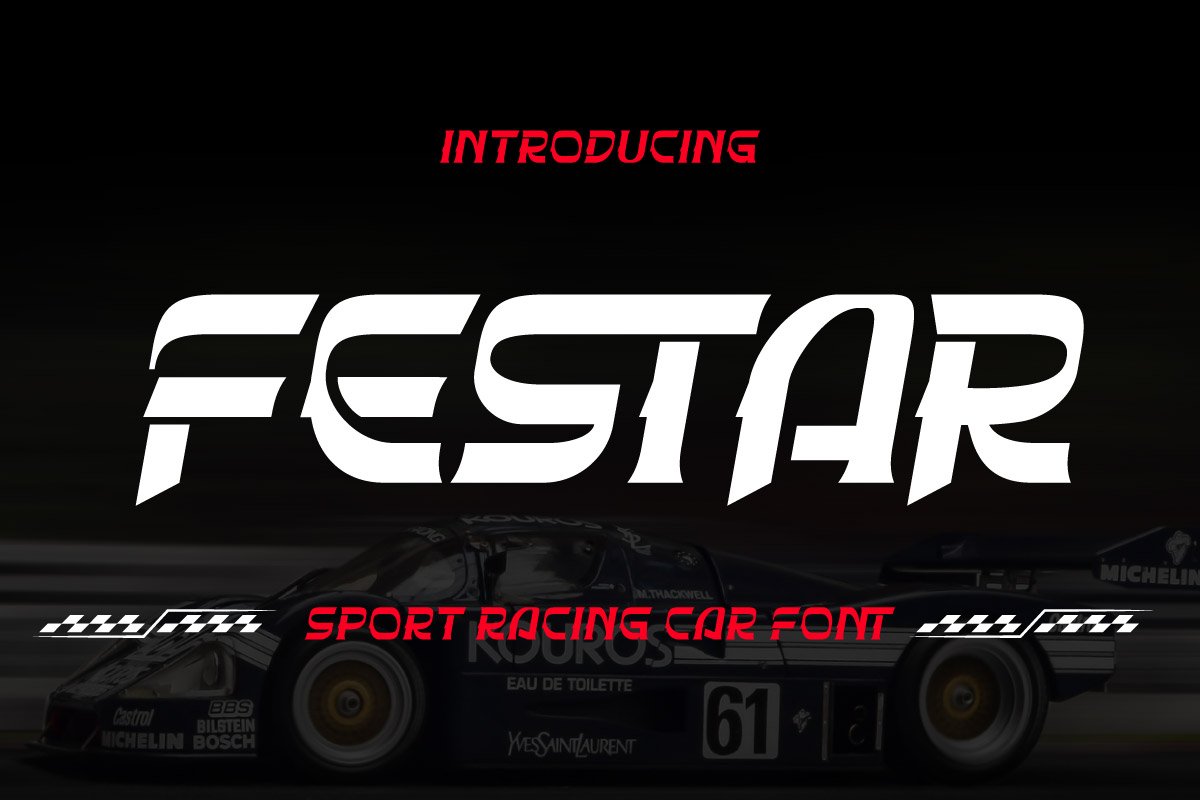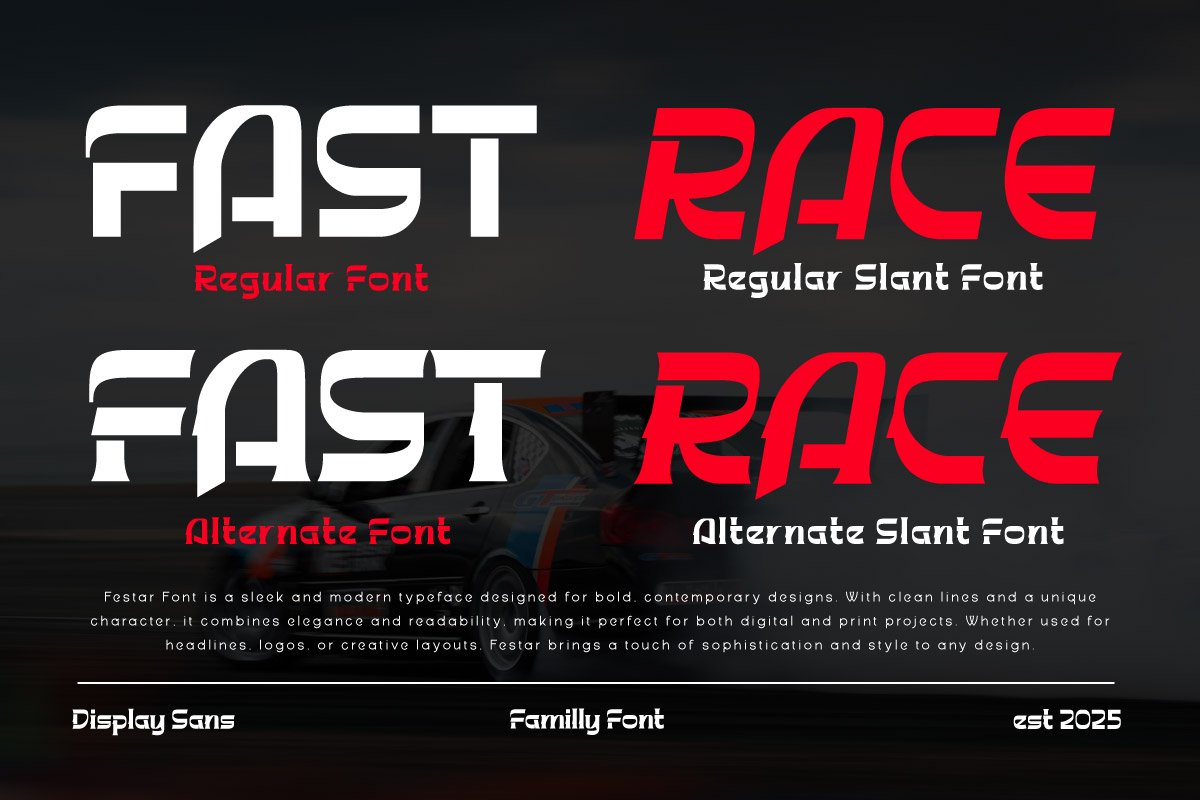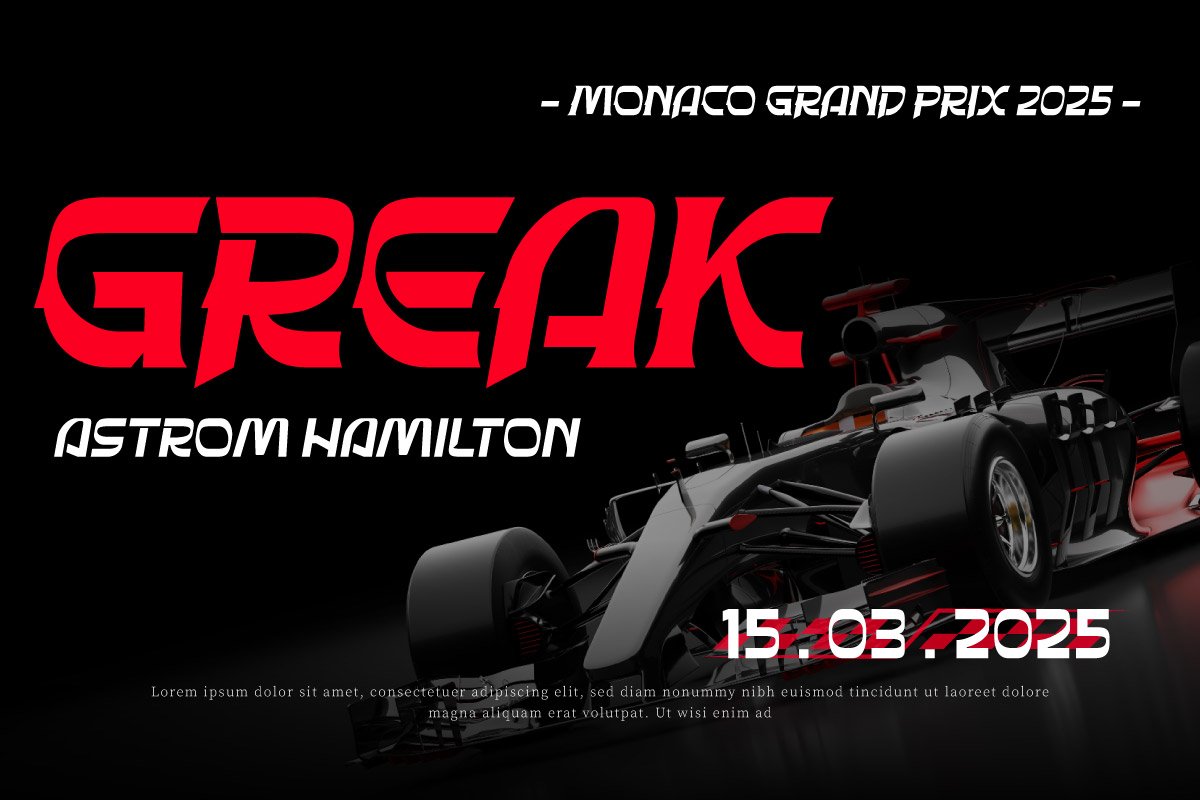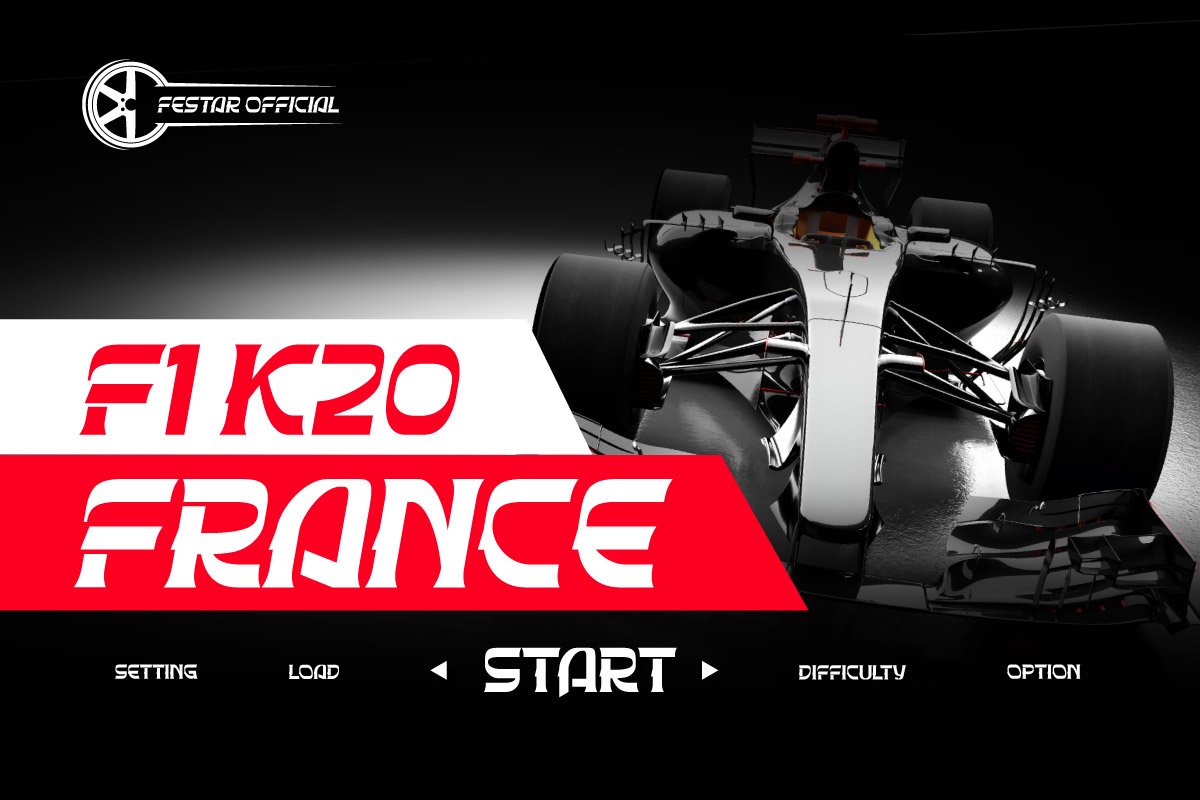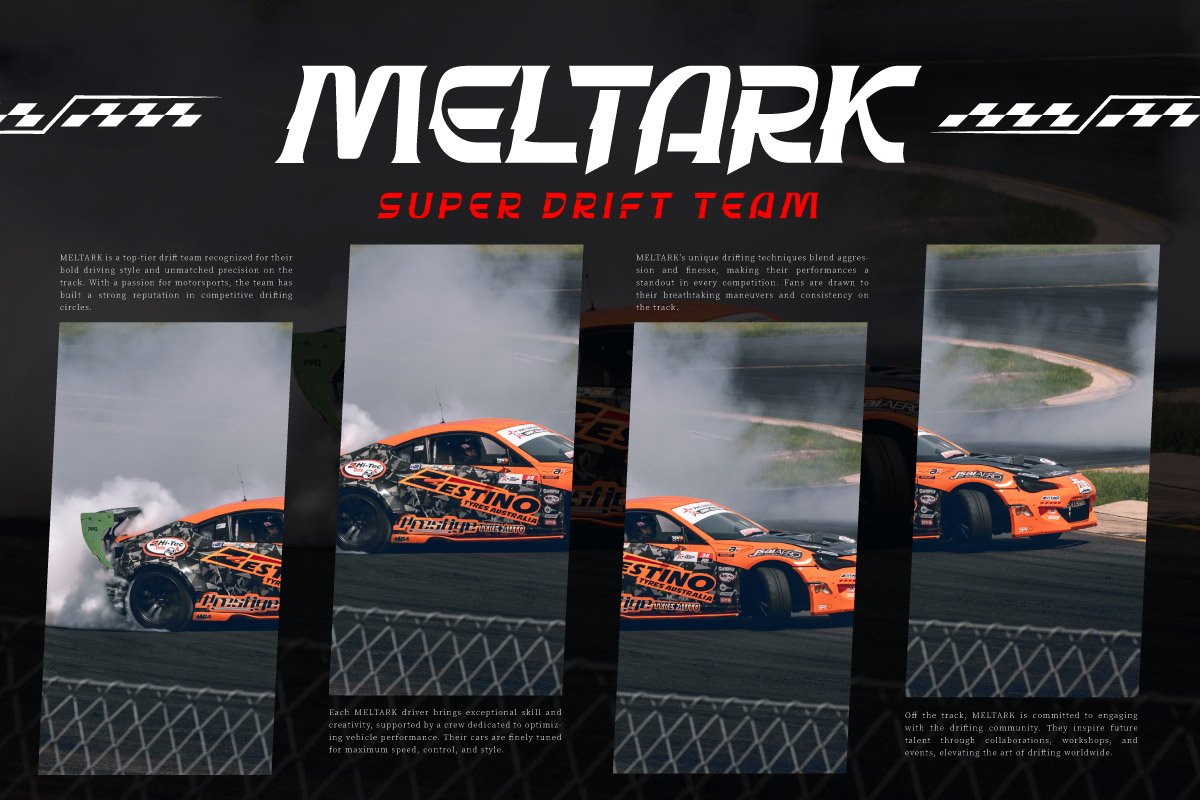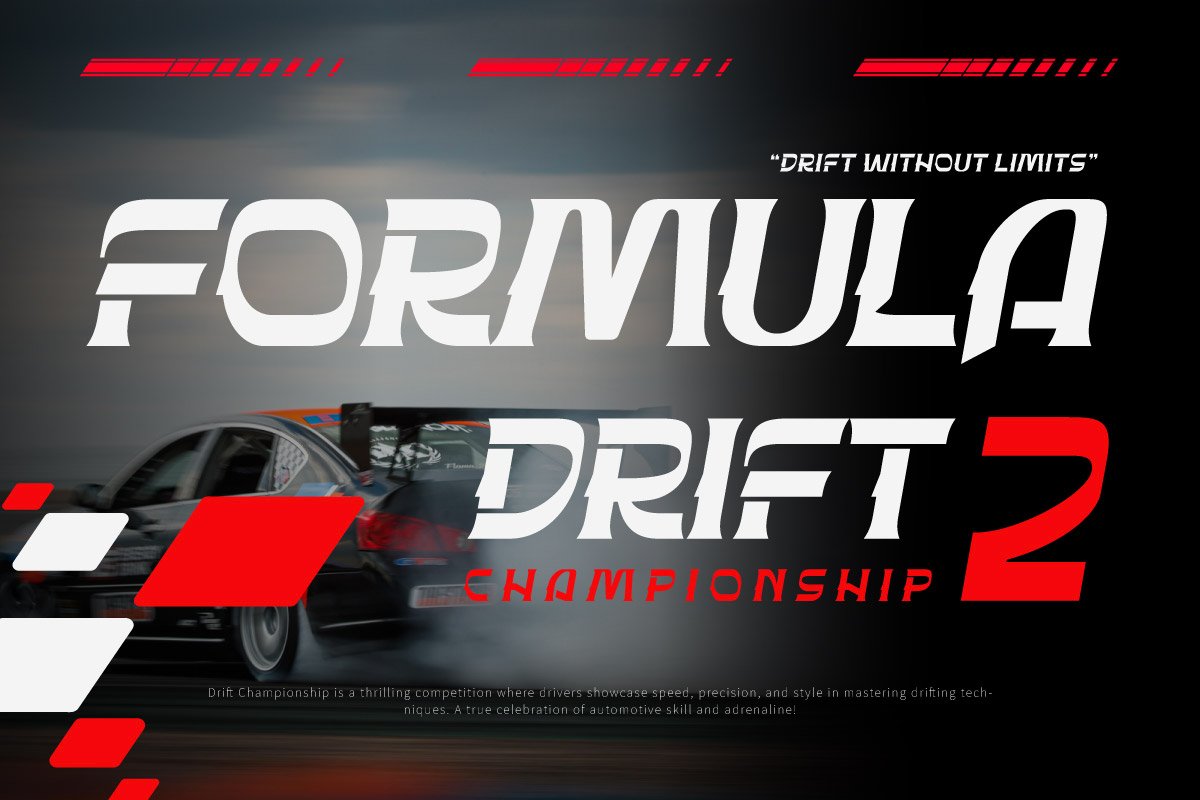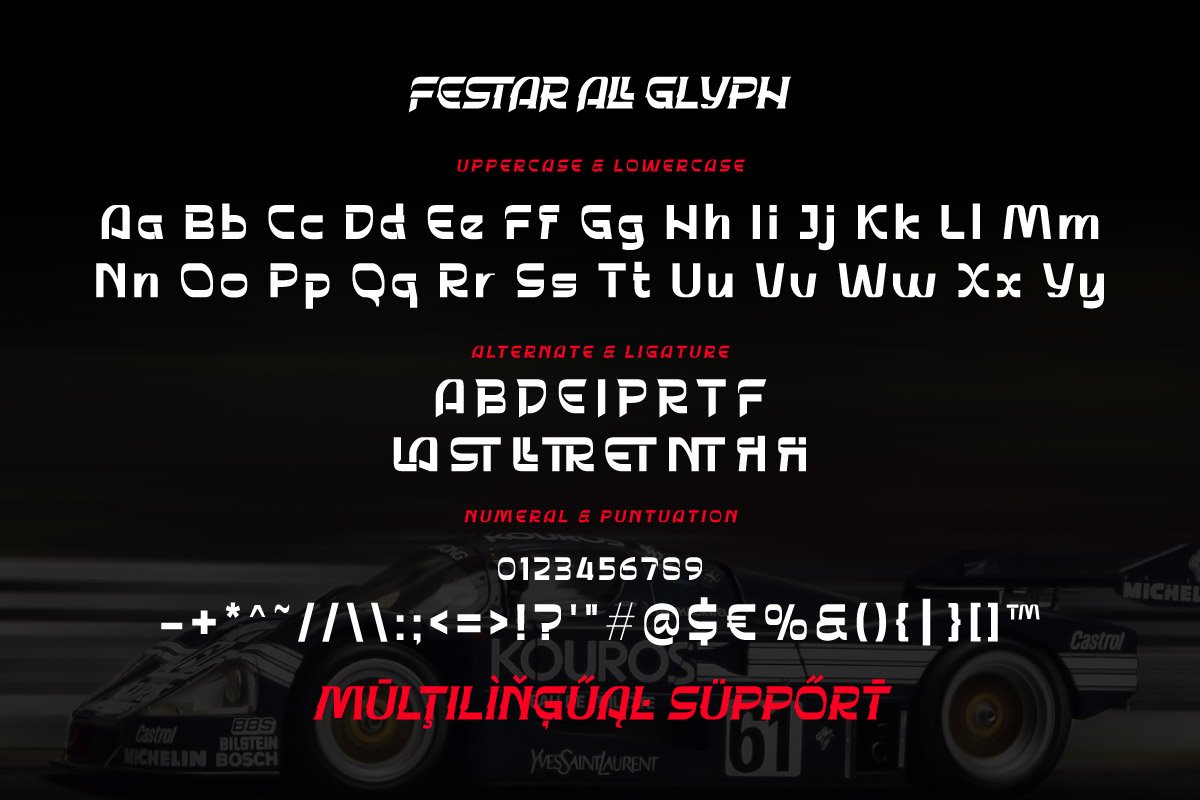
Festar – Sport Racing Car
Festar – Sport Racing Car Font is a dynamic and high-energy typeface inspired by the world of motorsports. With its bold and fast design, Festar is perfect for racing-themed branding, car stickers, event posters, and sports merchandise. This font captures the thrill and adrenaline of the racetrack, adding speed and excitement to your designs.
Spice up your projects with Festar’s bold and vibrant style and leave a lasting impression on your audience.
Fonts include Multilingual: Support for 85 languages.